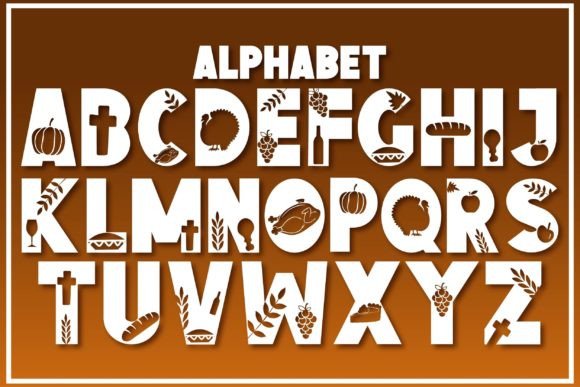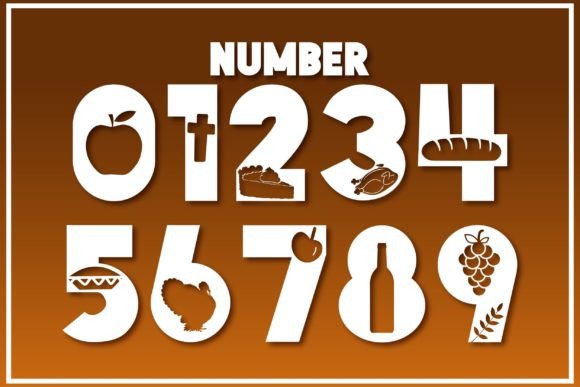
Introduction to Give Thanks Font
Give Thanks is a cute and adorable decorative font.
This font has a very festive and versatile feel, so add it to your favorite Thanksgiving designs and make them come alive .
Key Features of Give Thanks Font